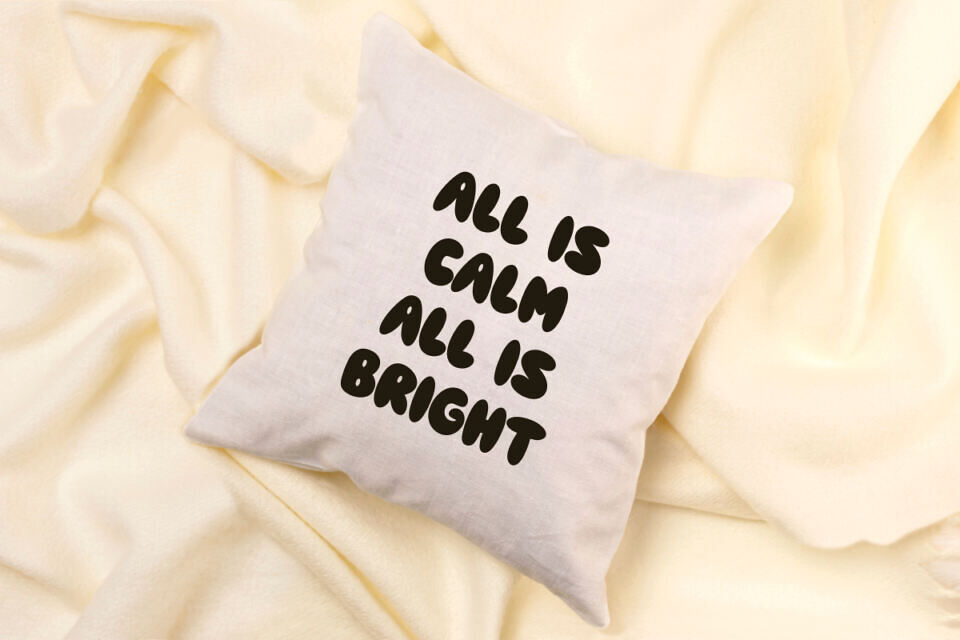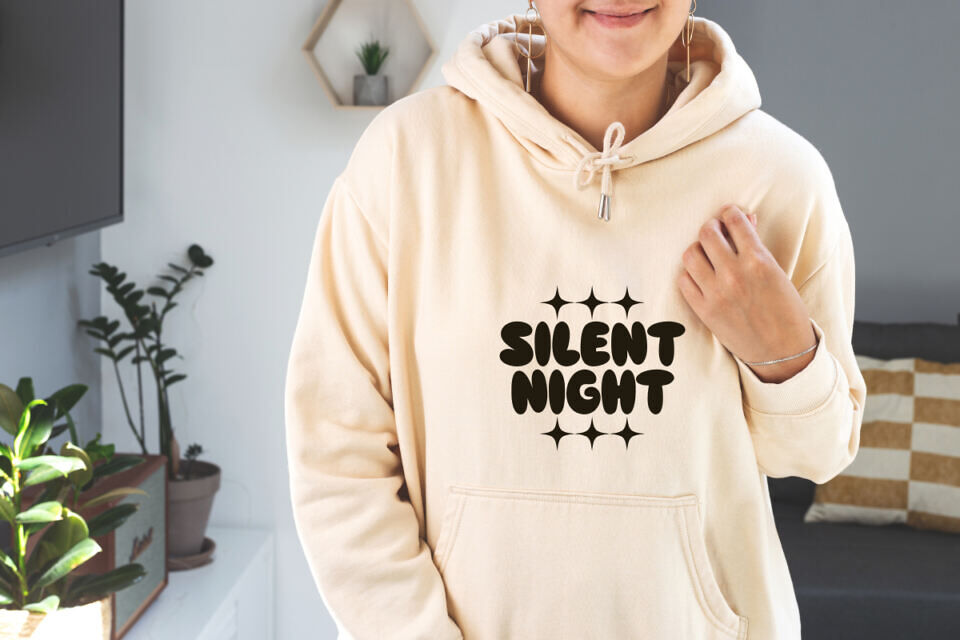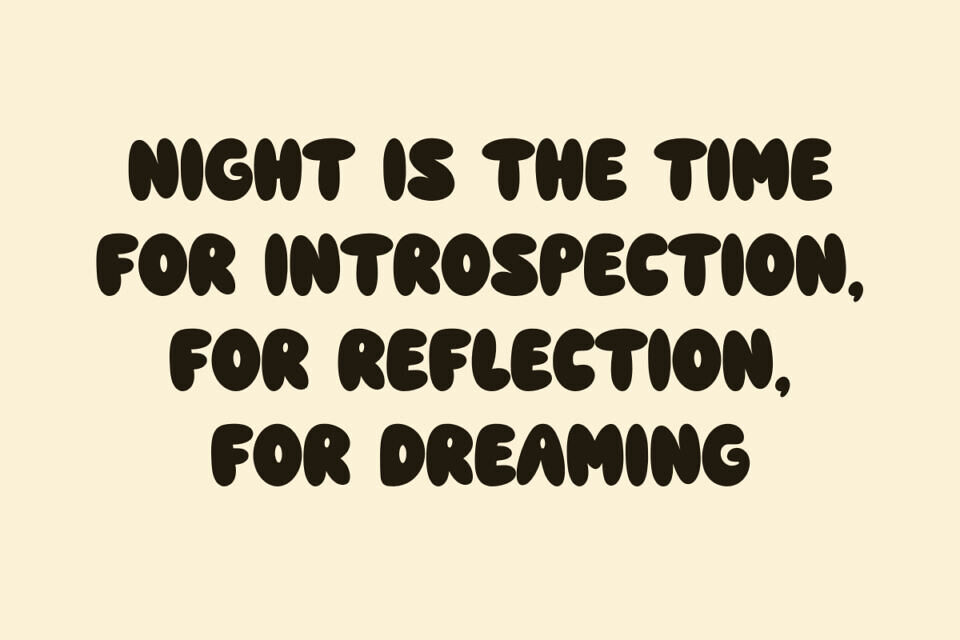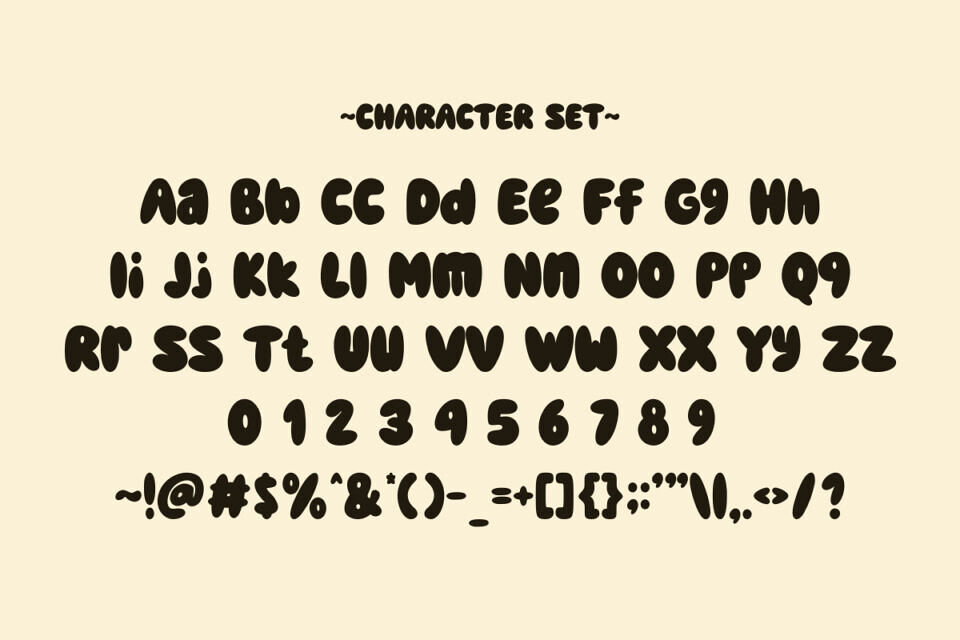
Slient Night Font
Silent Night is a playful and cozy bubble font that radiates charm and warmth. Its rounded, oversized letterforms create a fun and approachable aesthetic, perfect for holiday designs, greeting cards, children’s projects, product packaging, or whimsical branding.
With its cheerful vibe and bold presence, Silent Night brings a touch of joy and sparkle to any creative project.